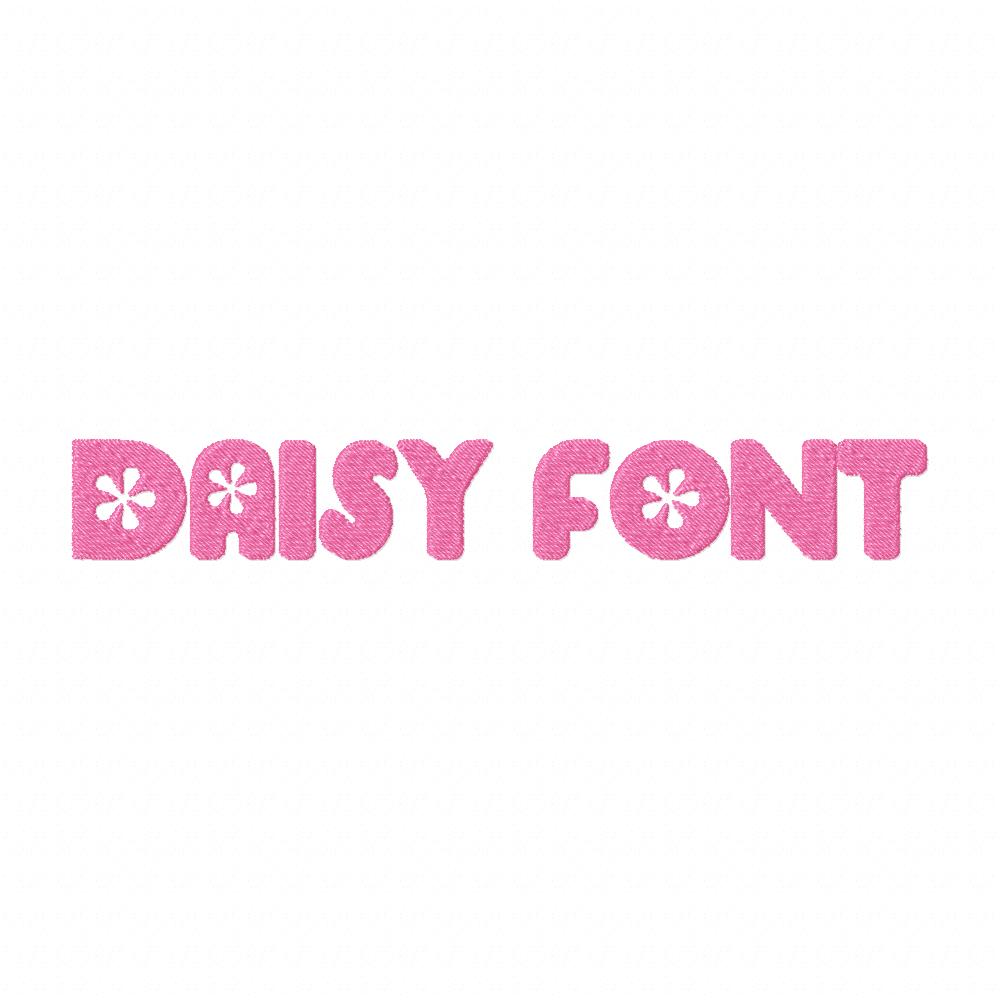
Daisy lovers is a sans font with handwritten touch. If you want to create the different fonts text designs and styles, follow the steps given below: Honeyglow pineapple vs regular pineapple;
Daisy Contains 2 Styles And Family.